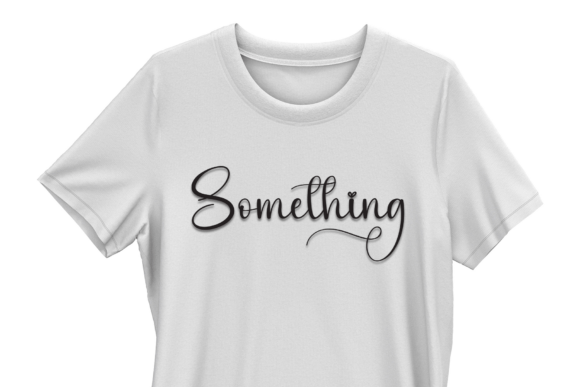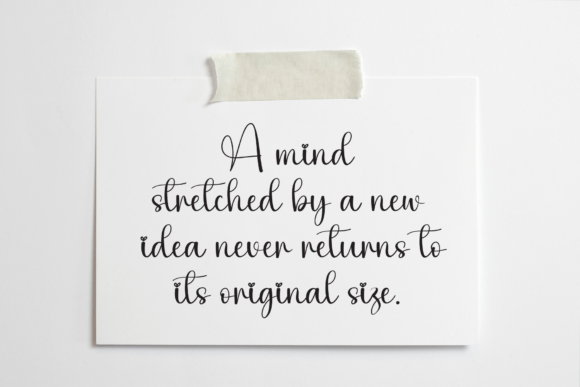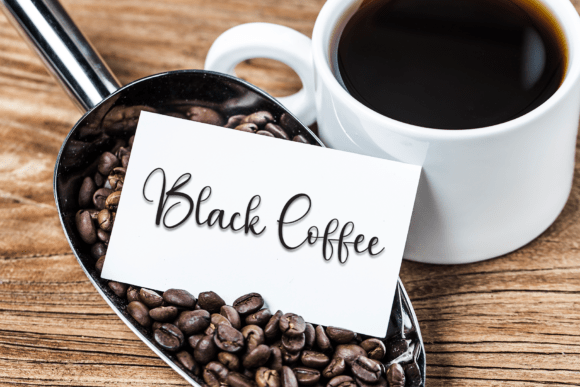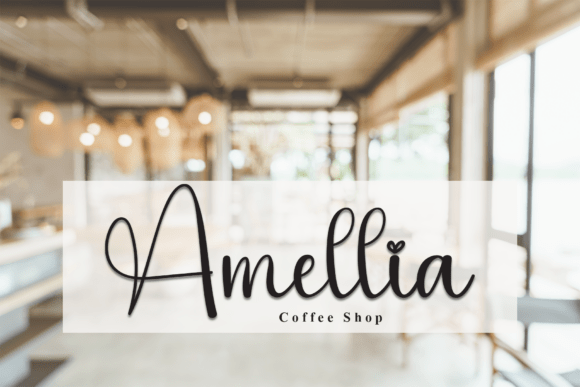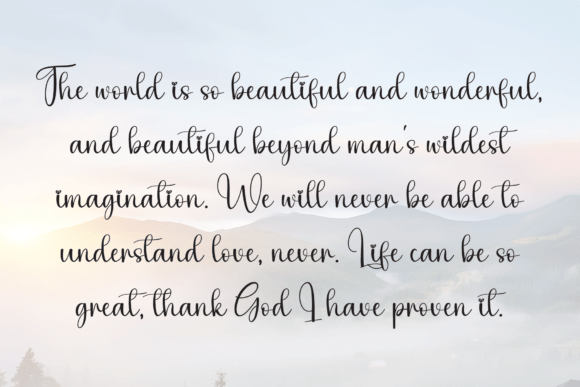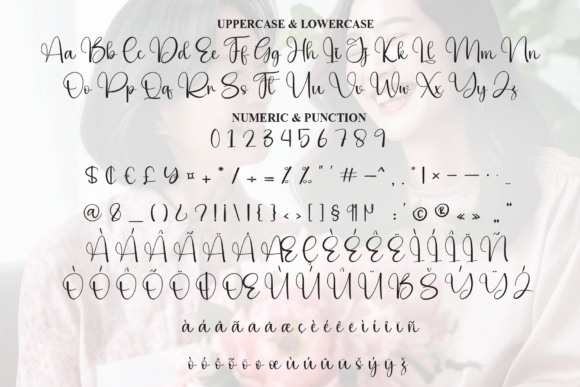
Introduction to Mothersday Font
Remember the moment you stumbled upon that perfect font that made your design come alive? For many of us, that moment is what drives our passion for creating something truly special. It’s the spark that ignites a new idea, the missing piece that completes a project, and the magic that makes our designs truly unforgettable.
As designers, we’re always on the lookout for that elusive font that elevates our work from good to great. And today, we’re excited to introduce you to the Mothersday Font – a charming, handwritten display font that’s sure to capture the hearts of your audience. With its delightful fusion of sweetness and friendliness, this font is perfect for adding a touch of whimsy to your next creative project.
Key Features of Mothersday Font
- High-quality design: Mothersday Font is a premium quality font that is perfect for creative projects that require a touch of elegance.
- Unique characteristics: The font features a unique and modern design, with a mix of bold and cursive elements that make it perfect for creating eye-catching designs.
Honest Review: Mothersday Font
As a designer, I’m always on the lookout for high-quality design resources that can elevate my creative projects. The Mothersday Font is one such resource that caught my eye, and I’m excited to share my honest review.
Here’s what works well:
- ✨ The font is beautifully designed with a soft, elegant touch, making it perfect for feminine-themed projects or Mother’s Day designs.
- ⚠️ The font is only available in a limited number of styles and weights, which may not be suitable for designers who require a wide range of options.
Overall, I’m impressed with the Mothersday Font, but I do wish it had more options and flexibility. If you’re looking for a high-quality font for personal projects, this might be the perfect design resource for you.
The Mothersday Font is ideal for use in greeting cards, invitations, and other celebratory materials. It can also be used in social media graphics, posters, and other marketing materials.